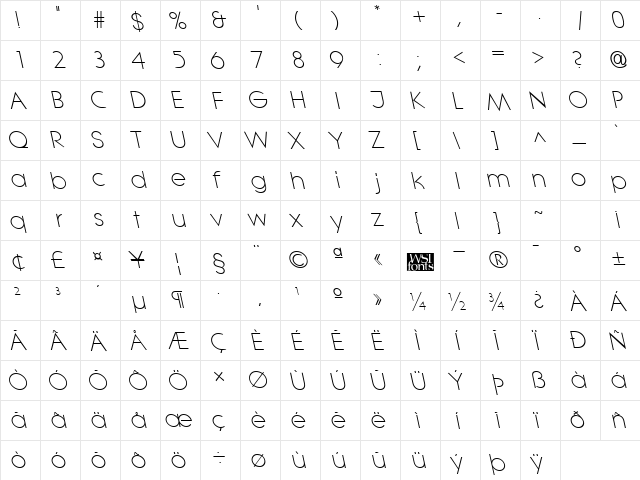
LitheLeftyLight Regular
Design Context for LitheLeftyLight Typeface
LitheLeftyLight offers clean, dependable letterforms without strong stylistic allegiance, making it a practical choice for designers who need flexibility. The delicate stroke weight brings airiness and refinement to layouts.